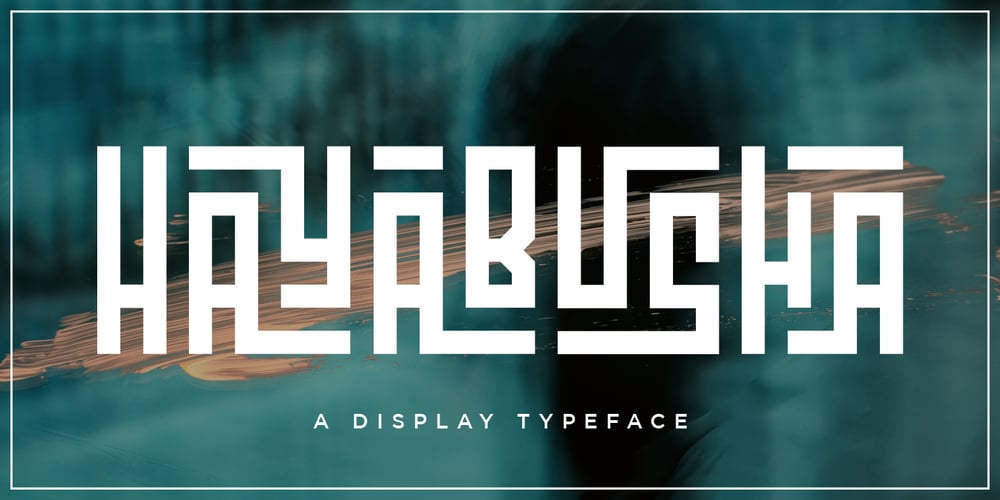
Hayabusha Font Family was designed by Yanuar Adi and published by Typehand Studio. Hayabusha contains 1 styles and family package options. A display font with 700++ ligature, Hayabusha packs a full set of capitals, number and punctuation. Be it gigs, sport events, logo design or etc. Hayabusha was made to bring impact.Hayabusha features: AA AZ Ligature ZA ZZ Ligature ATA ETE and More ligature ATTA UTTU and More Ligature